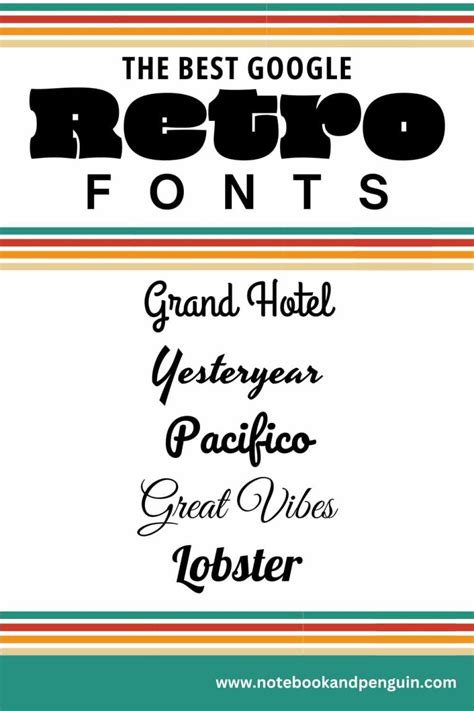
Retro Google Fonts. Web yesteryear is a flat nib connecting script font loosely based on the title screen from the 1942 film the palm beach story. Web making the web more beautiful, fast, and open through great typography
Web making the web more beautiful, fast, and open through great typography Web yesteryear is a flat nib connecting script font loosely based on the title screen from the 1942 film the palm beach story.
Web making the web more beautiful, fast, and open through great typography Web yesteryear is a flat nib connecting script font loosely based on the title screen from the 1942 film the palm beach story. Web making the web more beautiful, fast, and open through great typography